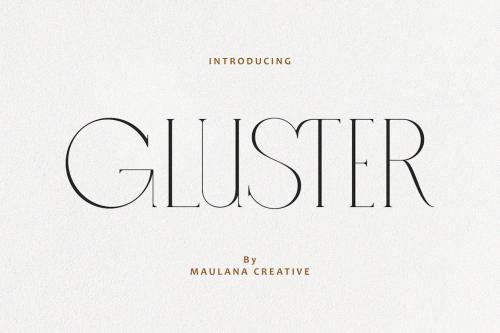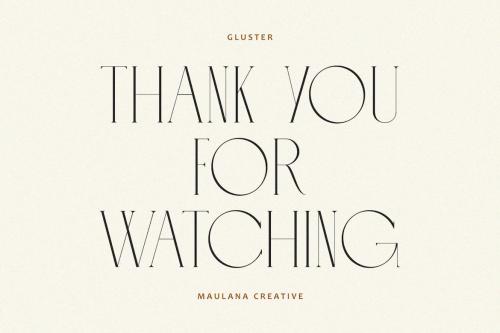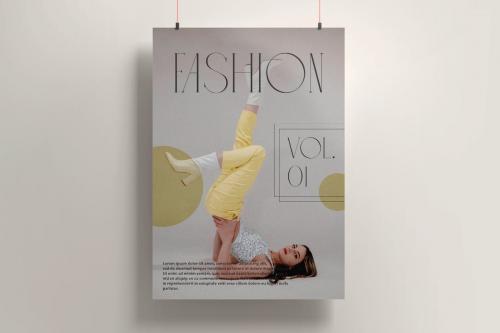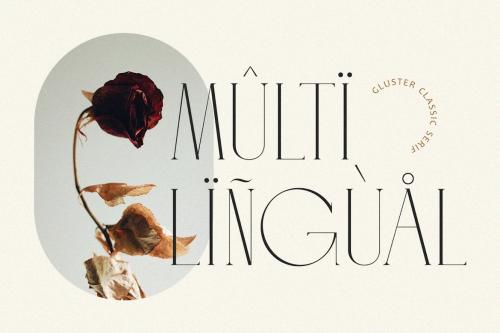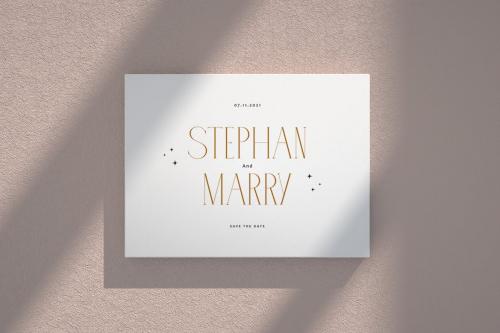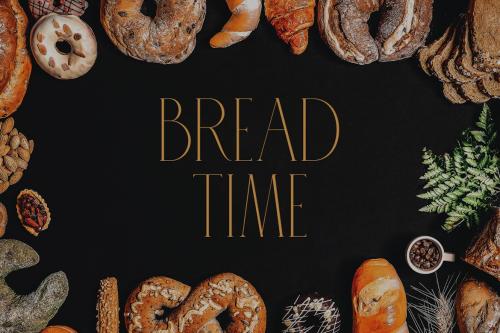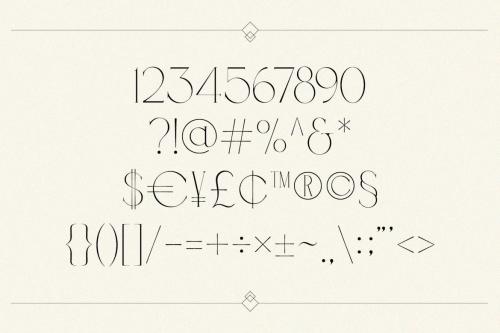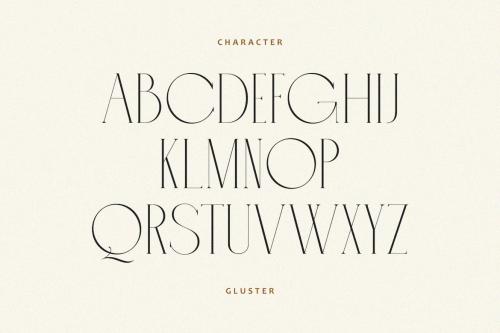
格尔斯特 Serif衬线字体类型face
Gluster Serif Display Font Typeface
Gluster Serif Display Font Typeface is a single weight black serif, modern casual typeface perfect use for headline, logo, magazine, and any editorial design needs also readable body text.